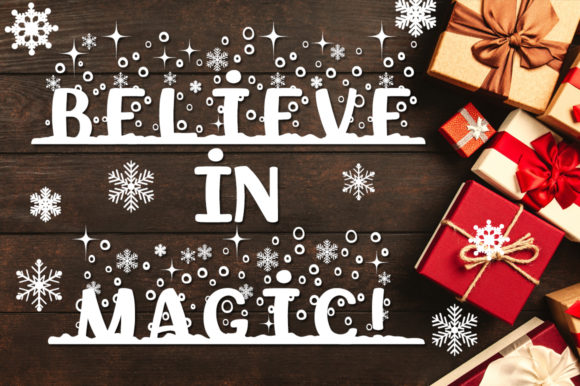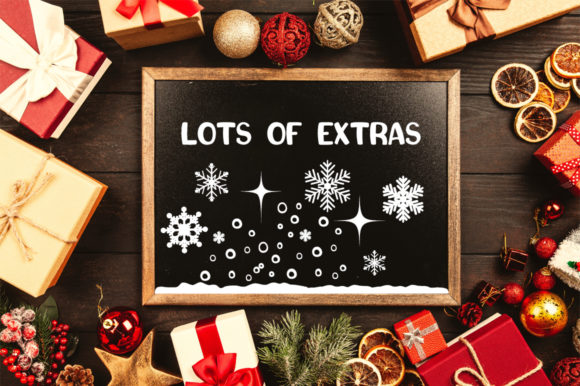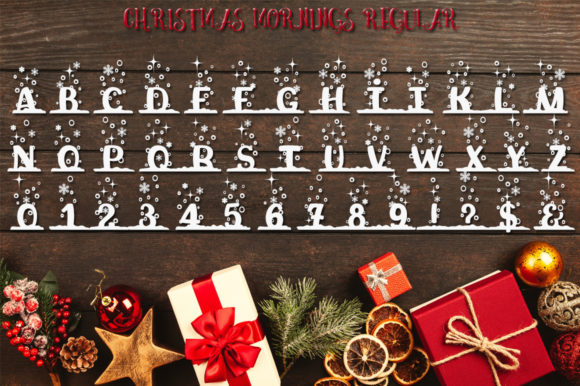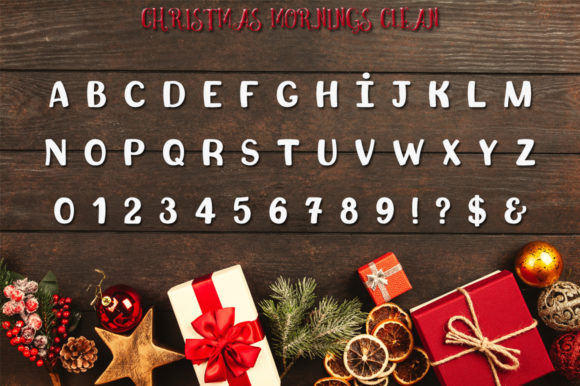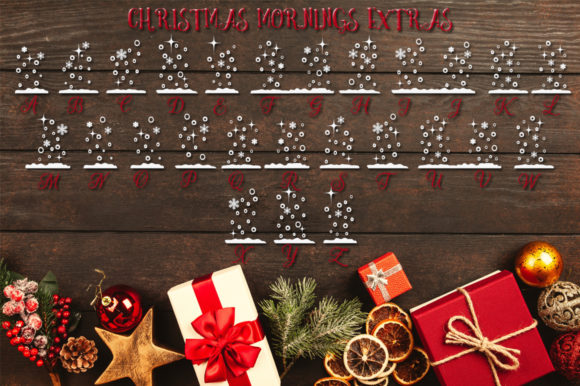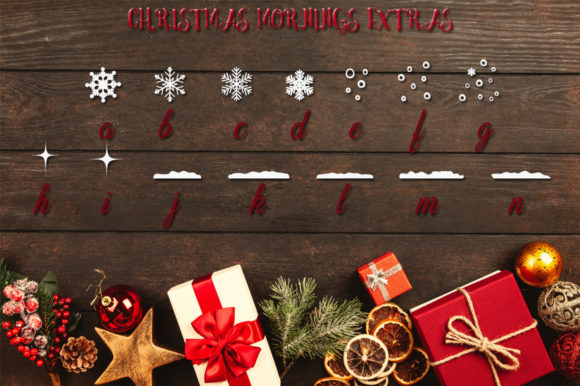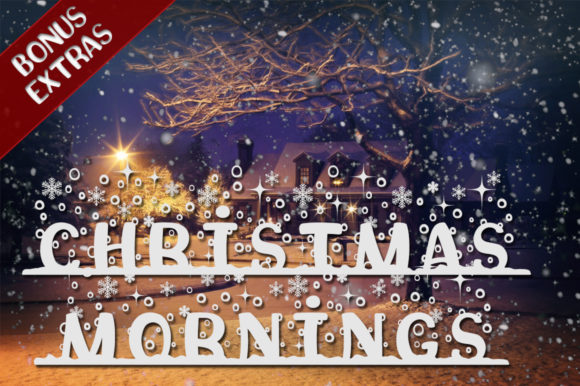
Introducing Christmas Mornings Font: A Festive Holiday Display Font for Designers and Crafters
Are you looking for a font that captures the magic and joy of the holiday season? Look no further than Christmas Mornings Font, a beautiful and versatile holiday display font perfect for designers and crafters alike. In this article, we’ll take a closer look at the features and benefits of Christmas Mornings Font, and explore how it can be used to add a touch of festive flair to your holiday projects.
What is Christmas Mornings Font?
Christmas Mornings Font is a holiday display font designed to be used as a header font, ornamental font, and for craft products. It comes in two stylish variations: regular and clean, giving you flexibility and options for your design projects. Additionally, the font includes a bonus feature – Christmas Extras – which allows you to create a snowy background to pair with your favorite fonts.
Key Features of Christmas Mornings Font
- Two Style Options: The font comes in two styles: regular and clean, allowing you to choose the one that best suits your design needs.
- Christmas Extras: Included as a bonus, Christmas Extras font lets you create a beautiful snowy background to use with any font you prefer.
- Optimized for Crafters: Christmas Mornings Font is optimized for use with cutting machines like Cricut, Silhouette Studio, and more, making it perfect for crafters.
- Efficient Cutting: The number of points in each letter has been reduced to a minimum, resulting in faster cutting times and a more efficient design process.
Using Christmas Mornings Font for Design Projects
Christmas Mornings Font is a versatile font that can be used for a wide range of design projects, from holiday cards and invitations to festive crafts and decorations. Here are a few ideas to get you started:
- Holiday Cards and Invitations: Use Christmas Mornings Font to create beautiful and festive holiday cards and invitations that are sure to impress.
- Festive Crafts: Perfect for crafters, Christmas Mornings Font can be used to create a variety of festive crafts, from holiday decorations to gift tags and more.
- Social Media Graphics: Add a touch of holiday cheer to your social media graphics with Christmas Mornings Font, perfect for Facebook posts, Twitter headers, and more.
Benefits for Crafters
Christmas Mornings Font is specifically designed with crafters in mind. Here are just a few benefits of using this font for your crafting projects:
- Easy to Cut: With a reduced number of points in each letter, Christmas Mornings Font is easy to cut and perfect for use with cutting machines like Cricut and Silhouette Studio.
- Time-Saving: The efficient design of Christmas Mornings Font means you can spend less time cutting and more time creating.
- Versatile: Use Christmas Mornings Font for a wide range of crafting projects, from holiday decorations to gift tags and more.
Tips and Tricks for Using Christmas Mornings Font
Here are a few tips and tricks to help you get the most out of Christmas Mornings Font:
- Experiment with Different Colors: Try pairing Christmas Mornings Font with different colors and textures to create a unique and eye-catching design.
- Use with Other Fonts: Combine Christmas Mornings Font with other fonts to create a beautiful and festive design.
- Don’t Forget Christmas Extras: Use Christmas Extras font to create a snowy background and add an extra touch of holiday cheer to your design.
| Font Name | Christmas Mornings Font |
| Author | Anastasia Feya |
Christmas Mornings Font is a beautiful and versatile holiday display font perfect for designers and crafters alike. With its two style options, Christmas Extras bonus feature, and optimized design for crafters, this font is sure to become a go-to for your holiday design projects. Whether you’re creating holiday cards, festive crafts, or social media graphics, Christmas Mornings Font is the perfect choice. So why wait? Download Christmas Mornings Font today and start creating your own festive holiday designs!